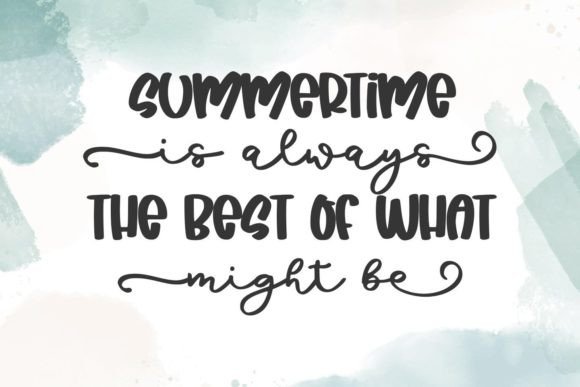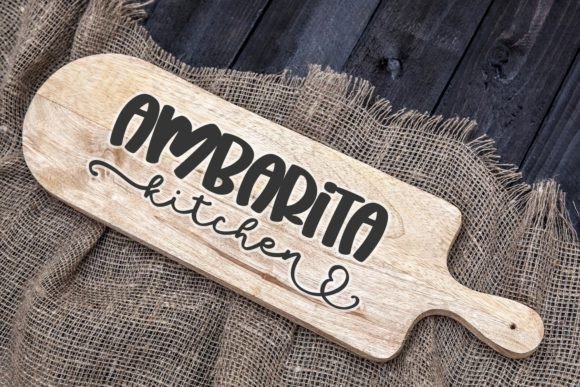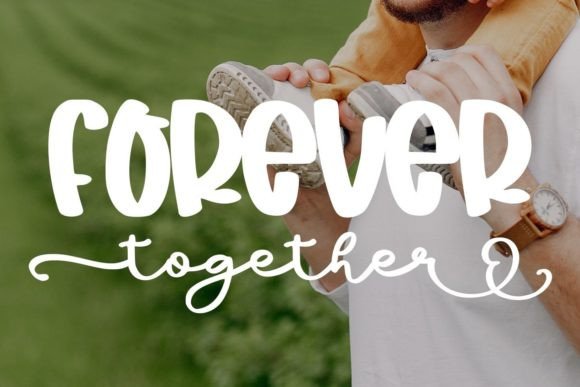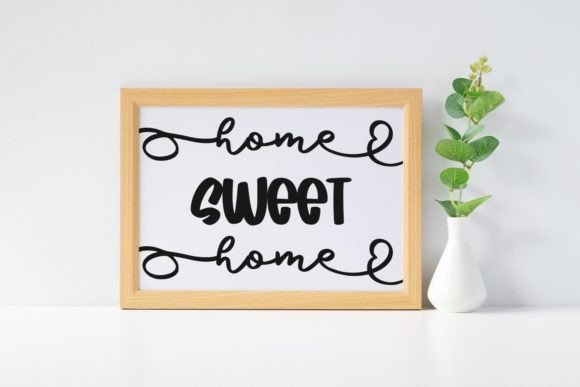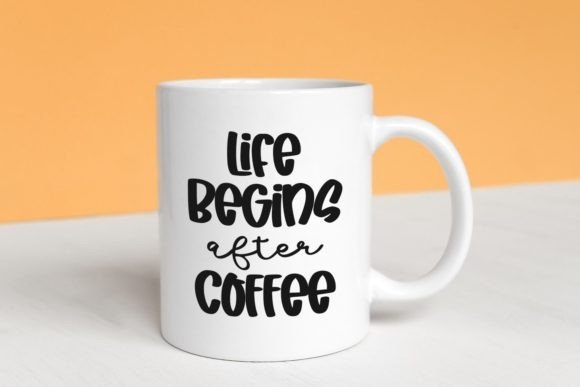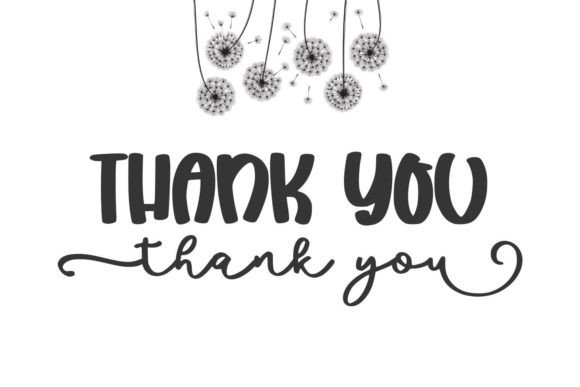
Introduction to Dandelion Garden Duo Font
Have you ever been stuck on a design project, unable to find the perfect font to bring your vision to life? I know I have. There’s nothing quite like the feeling of finally stumbling upon a font that captures the essence of your creative idea, and that’s exactly what the Dandelion Garden Duo Font does.
With its playful and authentic charm, this lovely font duo is a game-changer for designers looking to add a fresh and friendly touch to their projects. From lettering and quotes to logos and social media graphics, the Dandelion Garden Duo Font is a versatile design resource that’s sure to elevate your creative work.
Key Features of Dandelion Garden Duo Font
- Unique blend of whimsical and elegant design, perfect for creative projects and design resources.
- Comes in a pair of matching fonts, Dandelion Garden Duo Font Regular and Dandelion Garden Duo Font Outline, allowing for versatility in design.
- Designed to be used as a standalone font or paired with other fonts for a unique and creative look.
Honest Review: Dandelion Garden Duo Font
I recently had the chance to work with the Dandelion Garden Duo Font, and I must say it’s a beautiful addition to any design project. As a designer, I’m always on the lookout for high-quality fonts that can elevate my work and bring a personal touch to my creative projects.
The Dandelion Garden Duo Font is a lovely free download that’s perfect for designers who want to add some whimsy to their designs. It’s a versatile font that works well for various design projects, from digital art to print materials.
- It’s perfect for designers who want to add a touch of elegance and sophistication to their work.
One thing to note, however, is that the font might not be suitable for all design projects. For example, it may not be the best choice for bold or dramatic typography. ⚠️
Overall, I’m impressed with the Dandelion Garden Duo Font, and I would definitely recommend it to fellow designers who are looking for a beautiful and high-quality font for their creative projects.
To achieve the best results, use the Dandelion Garden Duo Font on a transparent background. This will allow the delicate, hand-drawn design to shine. Experiment with different font sizes and colors to create a visually appealing design.
The Dandelion Garden Duo Font is perfect for creative projects such as invitations, greeting cards, and social media graphics. Its high-quality design and transparent background make it an ideal choice for designers looking to add a touch of elegance to their work.